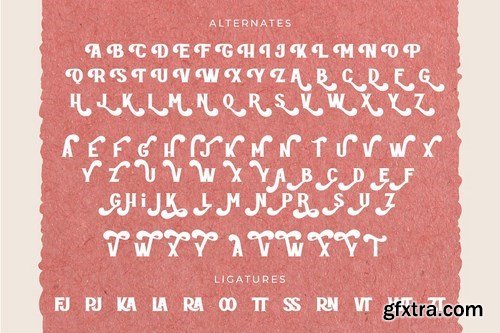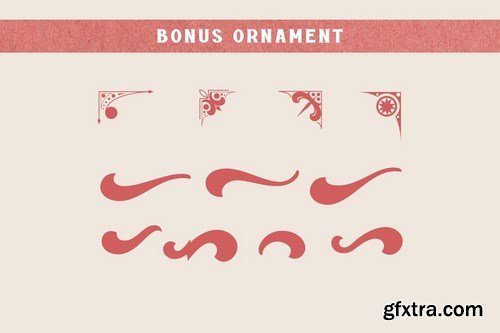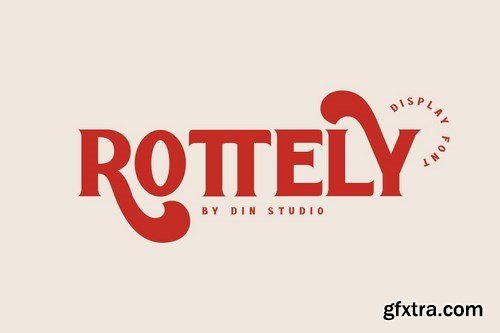
Say hello to Rottely Display Font, Rottely is a beautiful display font (Uppercase letters), designed with a modern and bold style. It's suitable for branding,logo,t-shirt printing and many other designs.